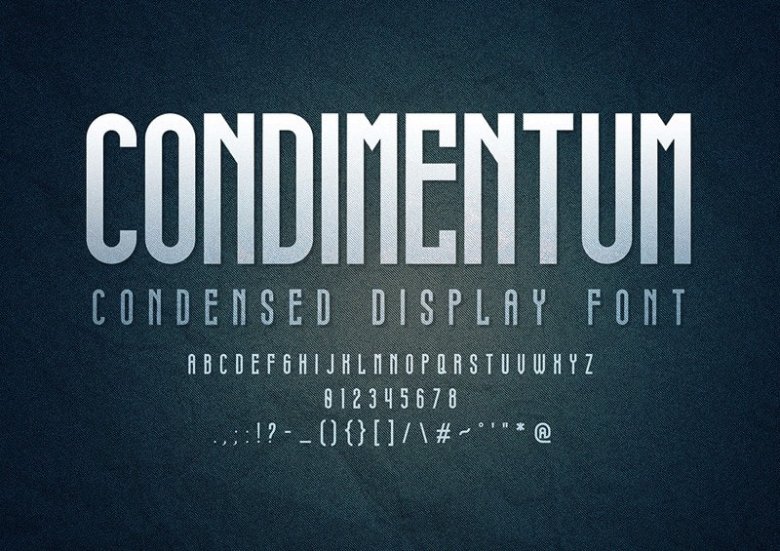
Condimentum Display Font
Condimentum Display Font is a modern display typeface inspired by Soviet Period with caps & lowercase letters, numbers & symbols.
You want to make a greeting card or a package design, or even a brand identity, craft design, any DIY project, book title, wedding font, pop vintage design, retro design or any purpose to make your art / design project look pretty and trendy?